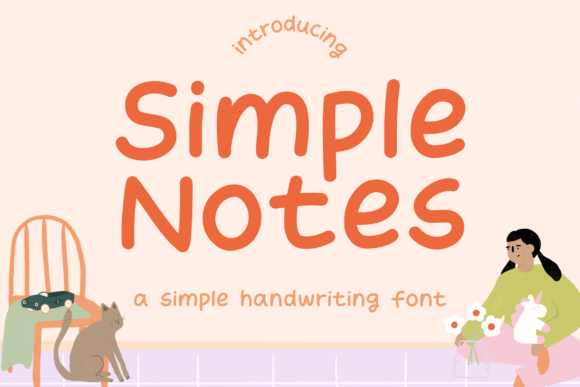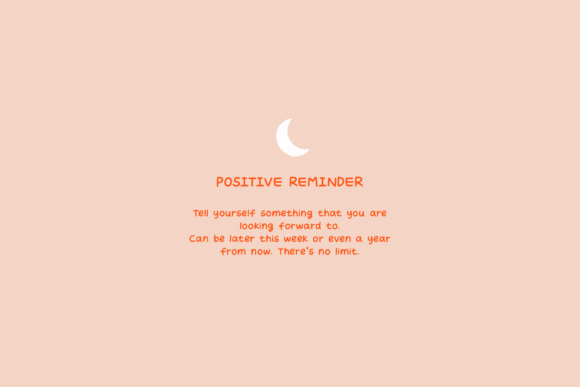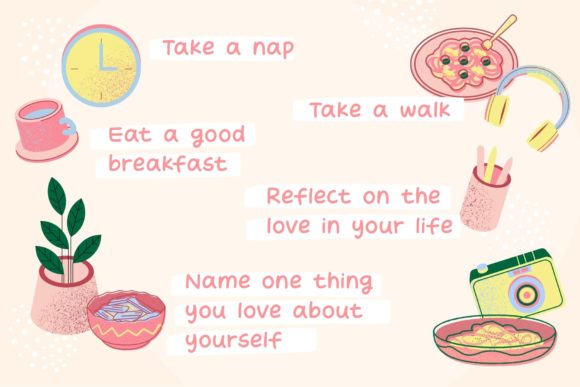
About Simple Notes Font
Simple Notes is a delightful and charming handwritten font that adds a touch of simplicity and cuteness to your design projects. With its clean and unpretentious style, Simple Notes is a versatile choice for a wide range of creative endeavors, allowing your designs to shine with a sense of ease and approachability.
When applied to different projects, Simple Notes brings a sense of clarity and straightforwardness. Its unfussy and legible letterforms make it an excellent option for creating clean and modern blog posts, adding a personal touch to your logos, and establishing a cohesive and relatable branding identity. Whether you’re crafting digital planners, invitations, or greeting cards, Simple Notes imparts a sense of warmth and familiarity to your designs.
For digital applications, Simple Notes stands out with its uncomplicated and friendly appearance. It’s a perfect match for digital bullet journals, planners, and photo albums, allowing you to organize your thoughts and ideas with a touch of style. Whether you’re creating digital content for your audience or personal use, Simple Notes adds a touch of comfort and simplicity to the digital landscape.
In the realm of physical design, Simple Notes maintains its charming essence. It translates seamlessly to printed materials such as decorations and photo albums, infusing your tangible creations with a sense of casual elegance. From invitations to event decor, Simple Notes contributes to a cohesive and inviting atmosphere that resonates with recipients and attendees.
In summary, Simple Notes is a wonderful and versatile handwritten font that brings simplicity and cuteness to your design projects. Its adaptability makes it suitable for various purposes, including digital and print applications. With Simple Notes, your designs exude a sense of approachability and authenticity, creating a connection with your audience and adding a touch of delightful simplicity to your creative undertakings.